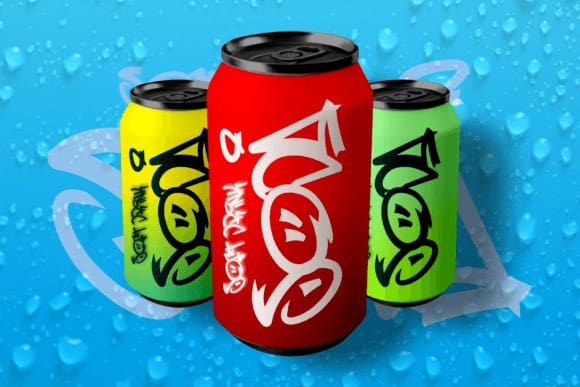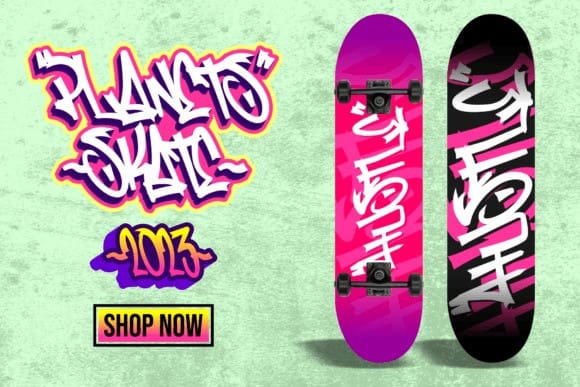
Big Monkey Font
Big Monkey Font is the epitome of urban cool in the world of graffiti fonts. With its oversized, bold, and rugged lettering, it’s a typeface that commands attention and exudes street-savvy character. This font is a perfect choice for projects seeking an authentic, edgy, and rebellious urban style, making it ideal for graffiti artists, street art enthusiasts, and anyone looking to infuse their designs with raw, urban energy.